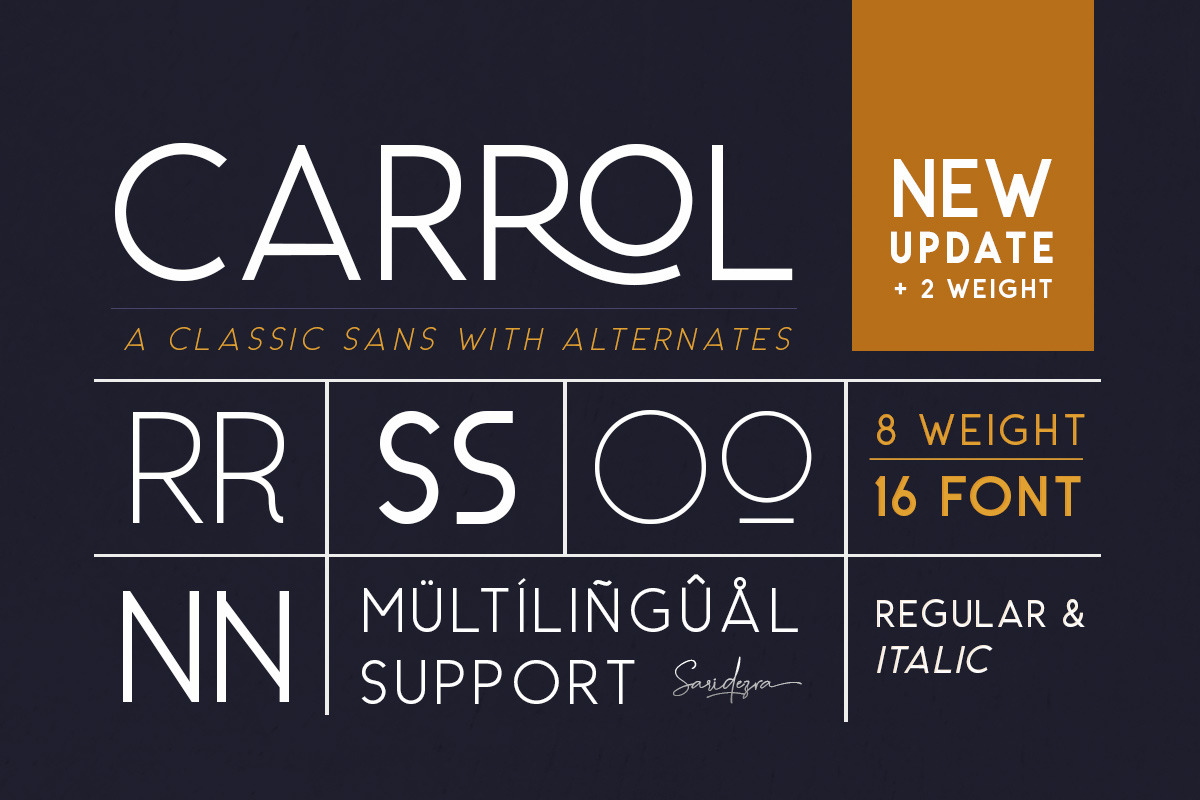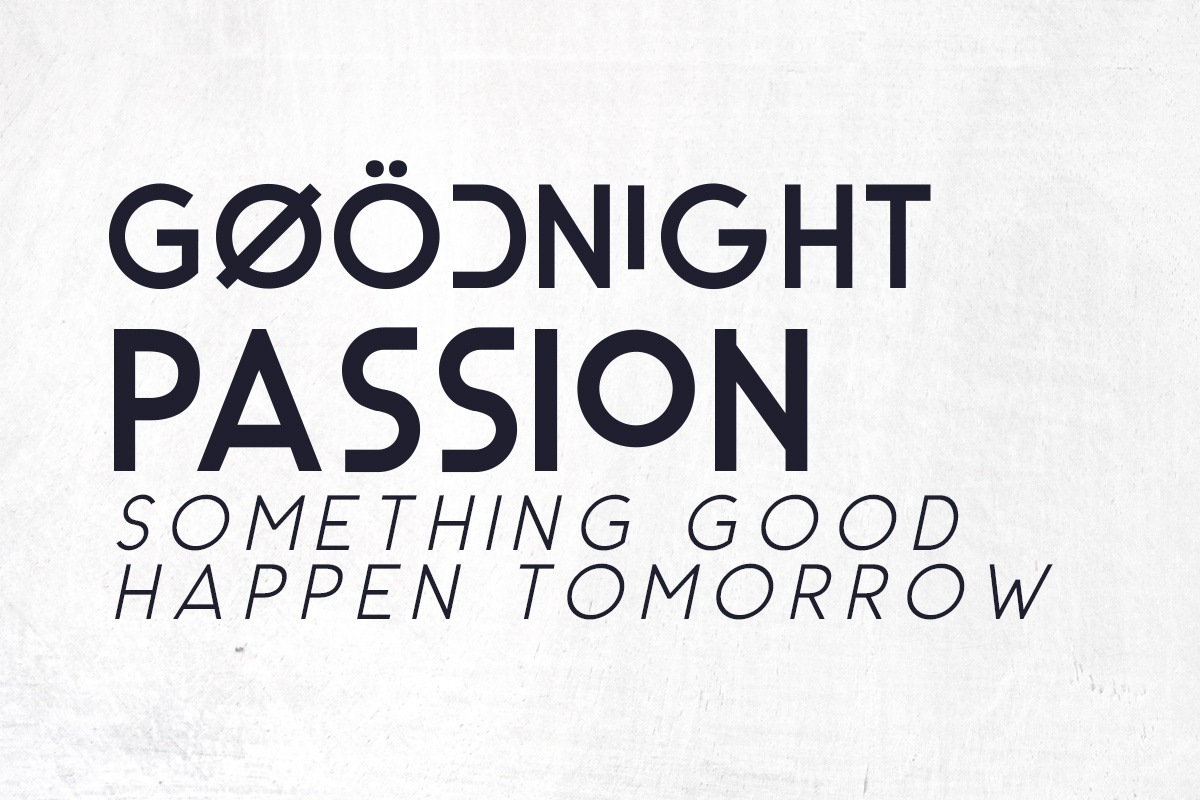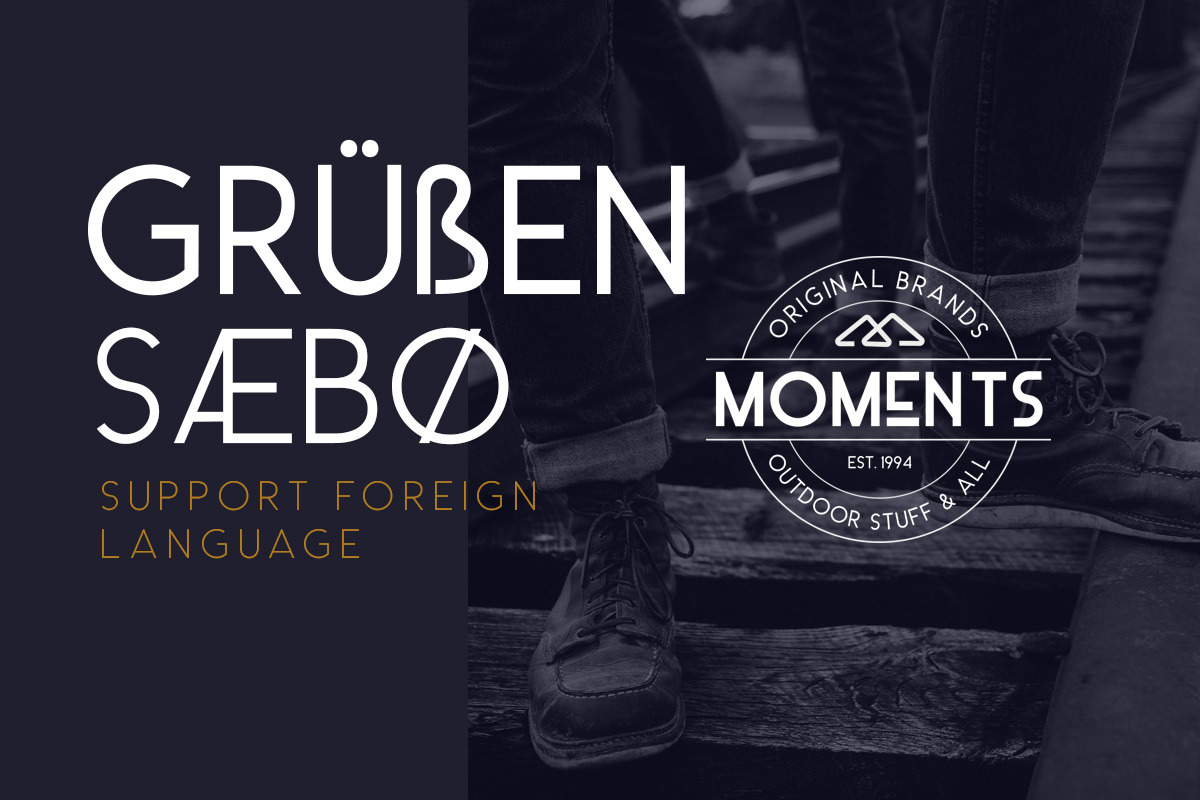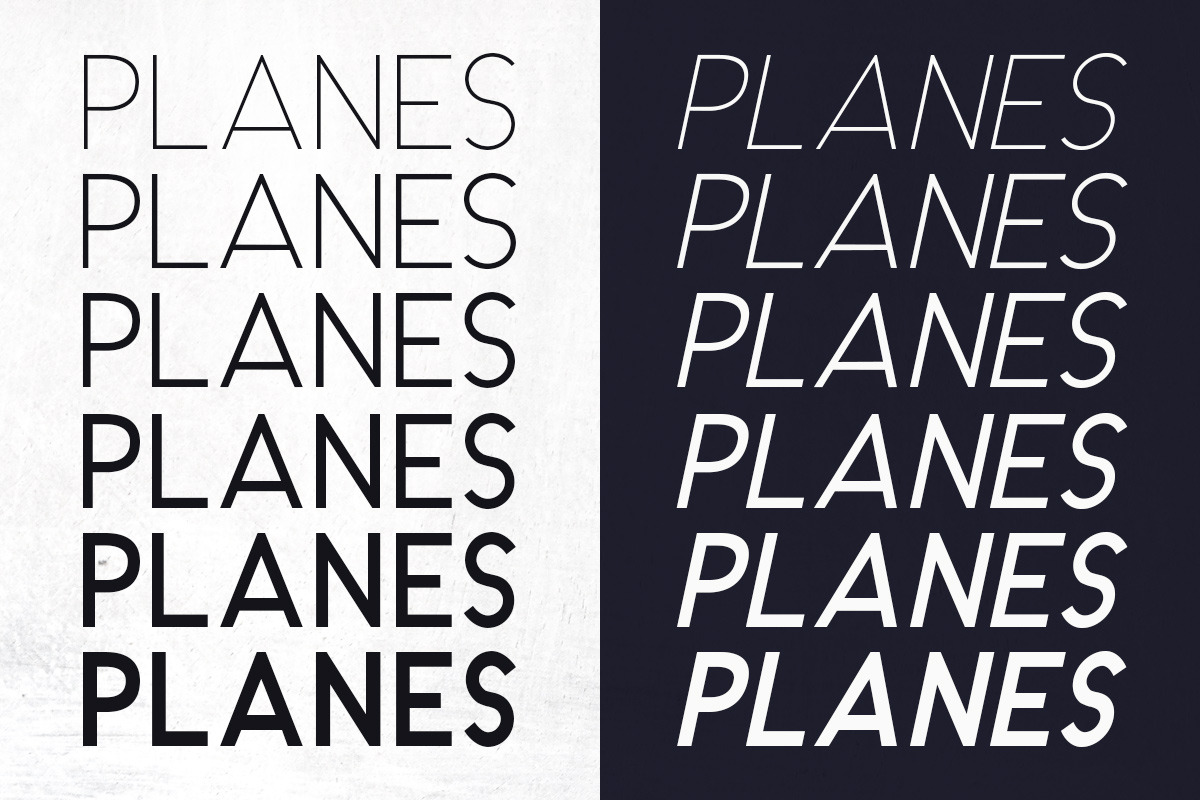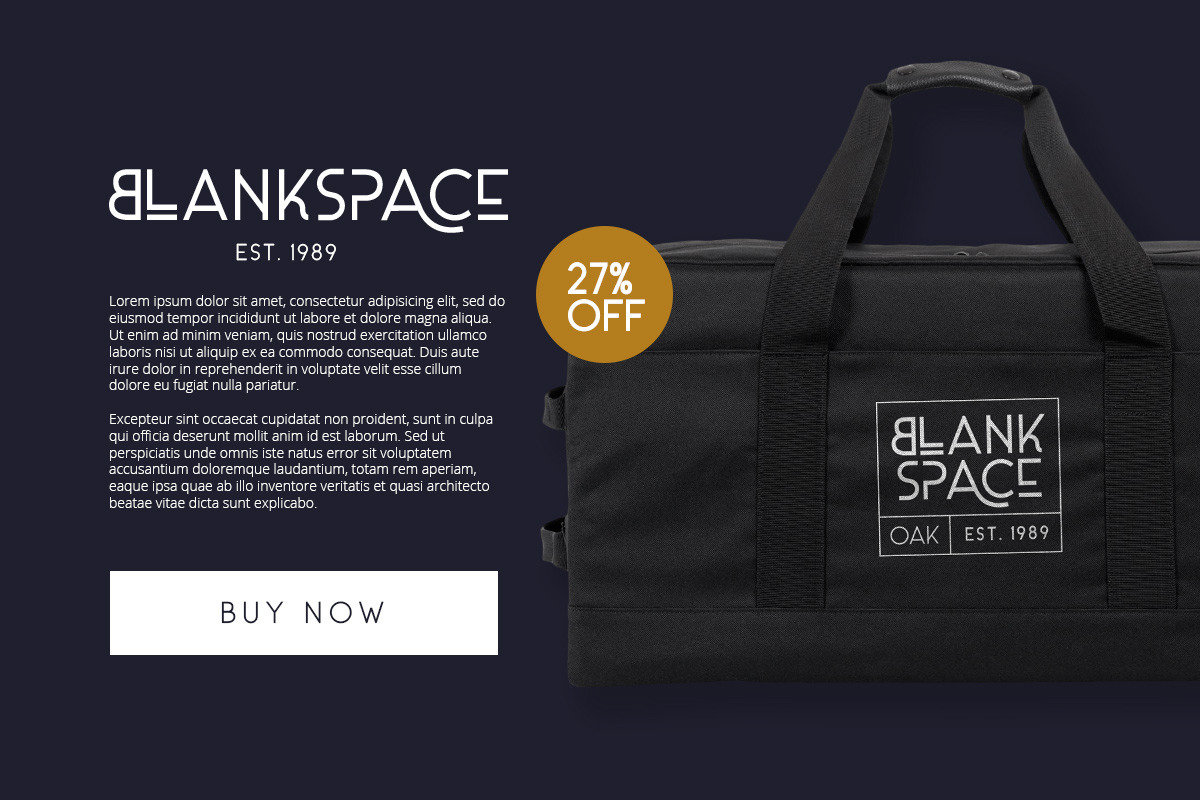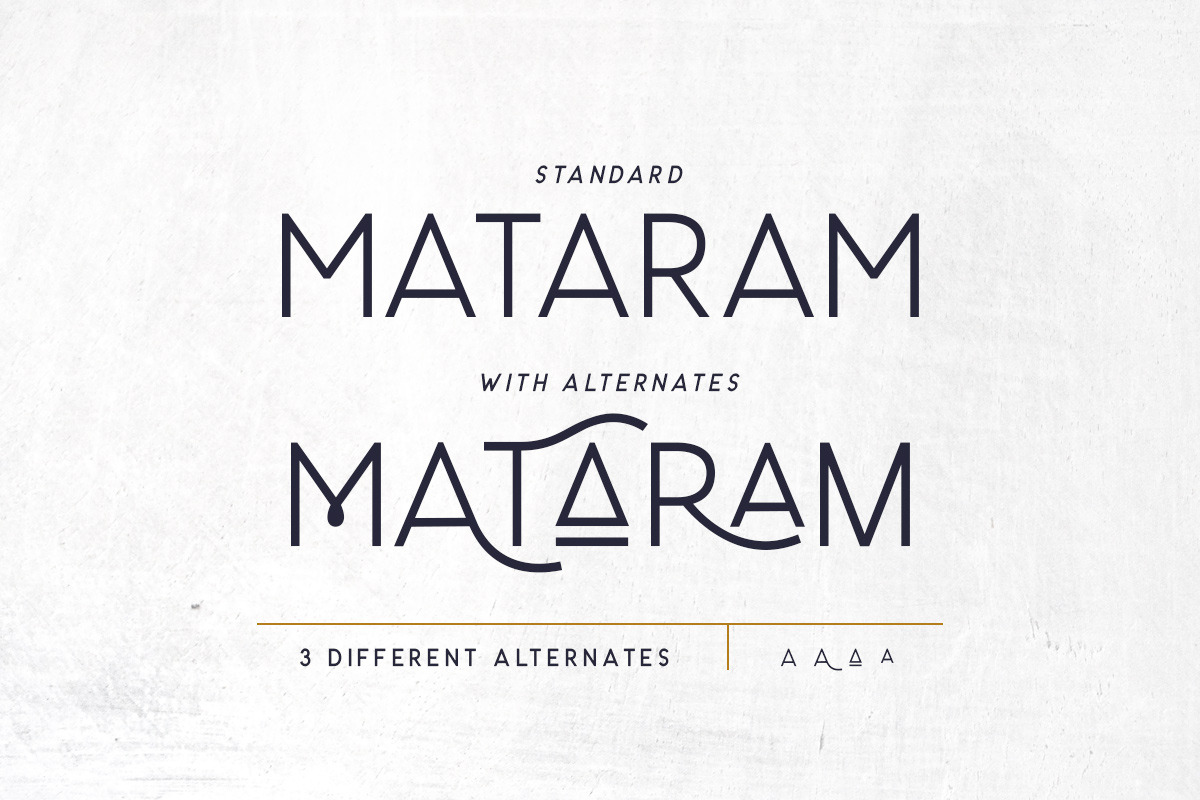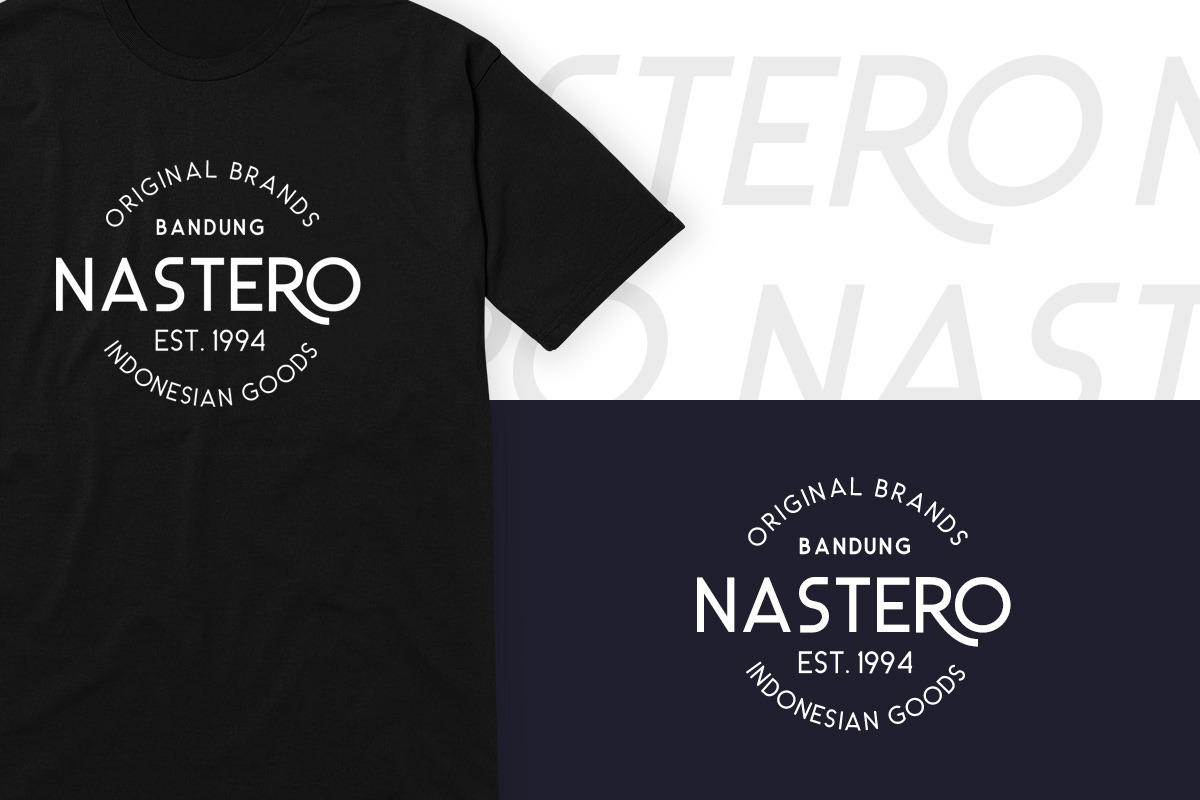
Introducing My first sans font. Carrol, a classic sans with alternates!
Carrol is a classic and modern sans with alternates in each alphabets! Every alphabet have alternates up to 3 kinds! This font fits in any project. You can use it for a tittle, logo, quotes, or become a pairing in any script font. This font also support multi language!